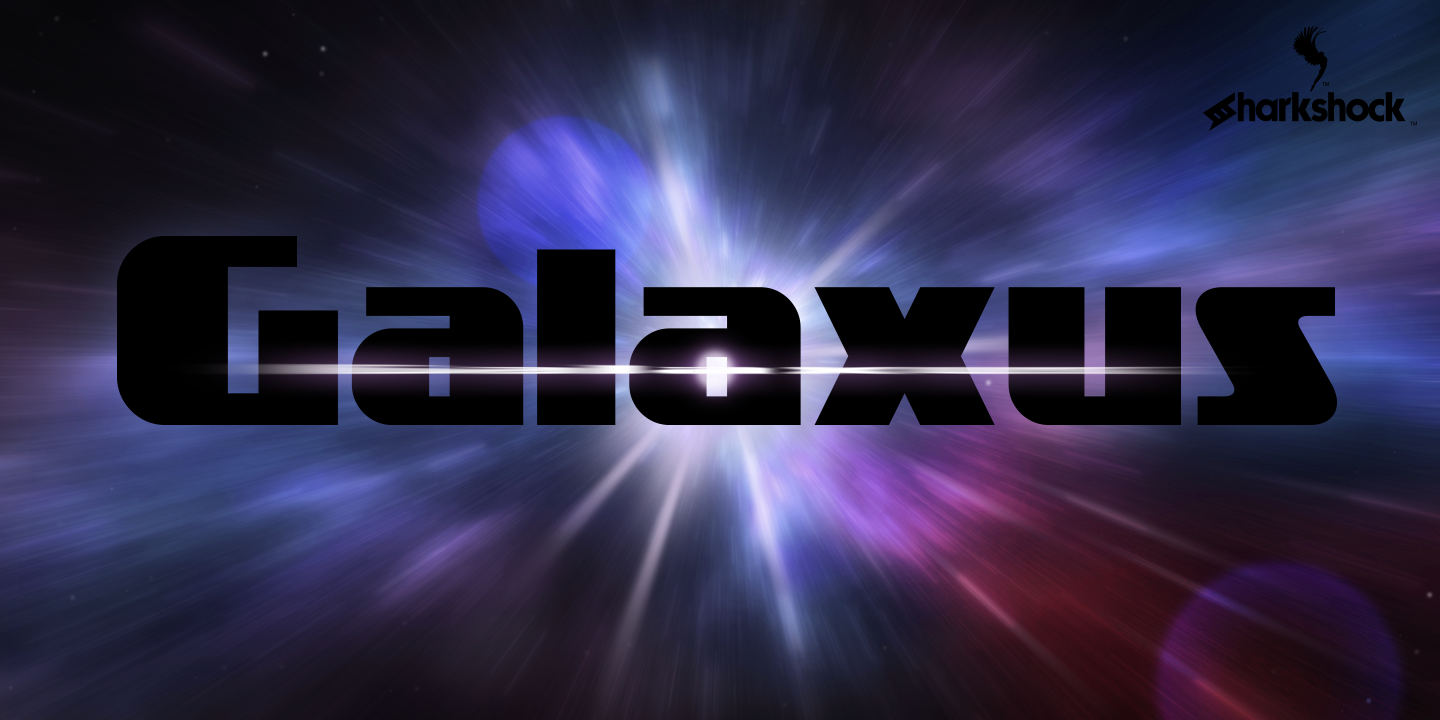
Preview and download Galaxus Font. Created by Sharkshock in Techno Sci-fi styles with Demo license.
OTF/TTF: Galaxus (Regular, Italic, Outlines, Outlines Italic) Sharkshock 2022. All rights reserved Designed by Dennis Ludlow 05/16/2022 dennis@sharkshock.net Galaxus is an edgy display font defined by its tight spacing, sleekness, and short descenders. Curvature is limited throughout the character set with straightened lines dominating the interior. Traditional diagonals in capitals like M, N, W and Y are given the straight treatment to maintain vertical emphasis. This styling along with the contrast between thick and thin make for a unique look. Galaxus would work well in a logo, on sports apparel, or in a video game. This family is equipped with Basic Latin, Extended Latin, diacritics, punctuation, kerning, and comes in 4 versions. The demo contains basic Latin only. The full versions can be purchased for $35 via PayPal or by acquiring a commercial license. Do note that this $35 is for personal use only. Email us or visit www.sharkshock.net/license for more information on licensing. Unauthorized usage of our intellectual property is strictly prohibited and may result in legal remedies at our disposal. Tags: toys, publications, futuristic, space, display, kids, style, European, galaxy, retro, children, warm, sans serif, action, accents, European, diacritics, logo, Sharkshock, sports, team, arcade, video |